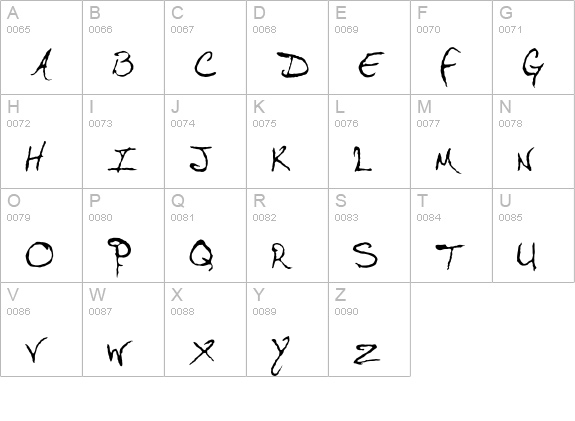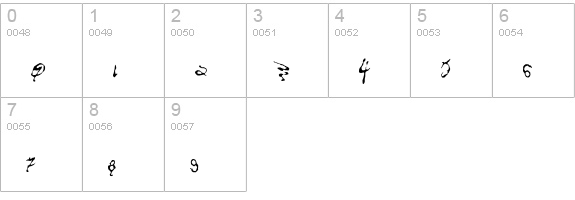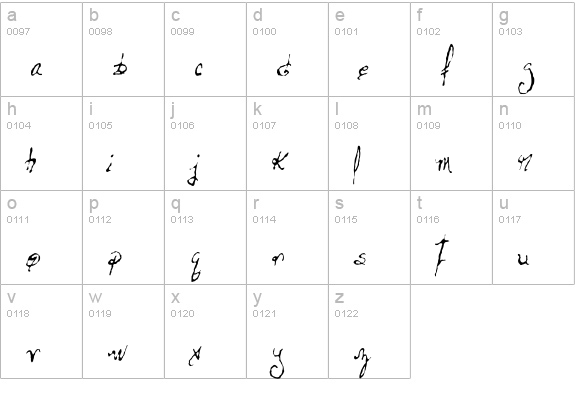
Dueonix Font Details
Dueonix font is a modern and versatile typeface that exudes elegance and sophistication. With its sleek lines and contemporary design, Dueonix is perfect for a wide range of design projects, from branding to advertising to editorial layouts. Whether you're creating a sleek logo for a high-end fashion brand or designing a stylish magazine spread, Dueonix font will add a touch of class to your work. What's even better is that Dueonix font is available for free download at FontsMarket.com. This means you can easily access this stunning font and use it in your projects without any cost. Don't miss out on the opportunity to elevate your designs with the beautiful Dueonix font – download it for free today!